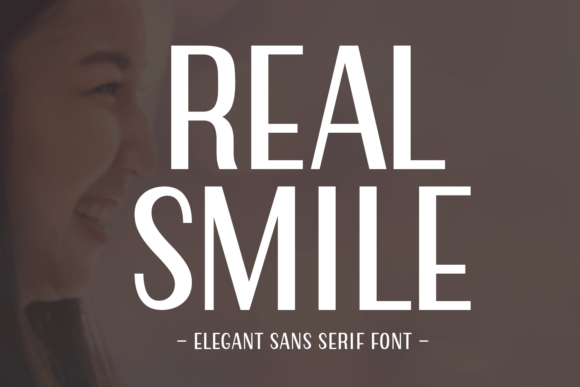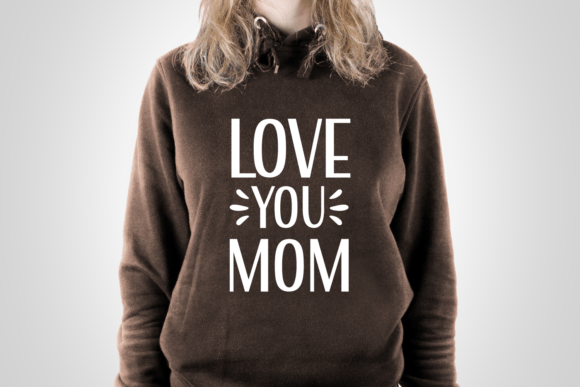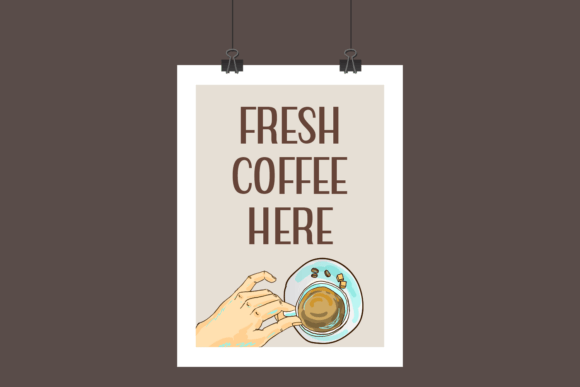
Real Smile Font
About the Real Smile Font
Unleash your creativity with Real Smile Font, a versatile font perfect for a wide range of applications. Real Smile is a versatile font that exudes authenticity and ease. It’s perfect for enhancing any design from branding materials to book covers, giving them an air of authority and sophistication. It’s soft, rounded contours make it a fantastic choice for greeting cards, logos, and packaging. It’s smooth style is even more accentuated with an attached Swash, making Real Smile the ultimate choice for creating quotes.
A hint of love and warmth can be found in its design, making it one amongst the ideal magazine fonts and not to forget, the perfect accomplice for your valentine day creatives. From sporting brands to launching coffee specials or blossoming your flower business, the Real Smile font can makeover any idea into something remarkable, while still maintaining a clean and professional appeal. Whether it’s for an apparel tag or a T-shirt quote, nothing says ‘Real Smile’ like this font itself.
Real Smile Font Usage Examples
Real Smile Font Example